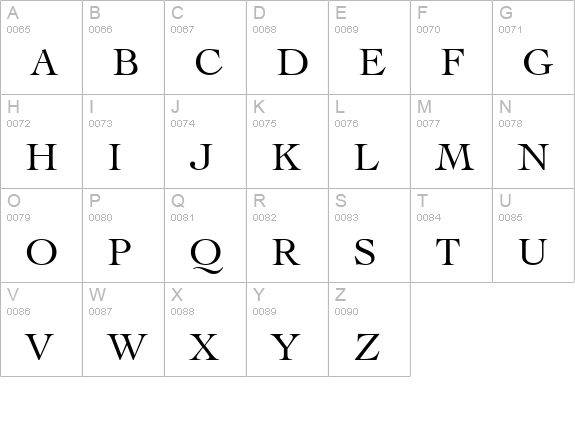
Thesis SSi Font Details
Thesis SSi is a sophisticated and versatile font that is perfect for all your design needs. With its elegant yet modern aesthetic, this font is sure to make a statement in any project. Its clean and crisp lines give it a timeless appeal, making it suitable for a wide range of applications. Whether you're designing a logo, creating a brand identity, or working on a website, Thesis SSi will elevate your design to the next level. One of the best things about Thesis SSi is that it is free. Yes, you read that right – this incredible font is freely available to download at FontsMarket.com. This means that you can enjoy the beauty and versatility of Thesis SSi without breaking the bank. It's a fantastic opportunity to add a high-quality font to your collection without having to spend a dime. Downloading Thesis SSi from FontsMarket.com is quick and easy. Simply visit the website, search for the font, and click on the download button. Within seconds, you'll have access to this remarkable font and can start incorporating it into your designs. FontsMarket.com ensures a seamless and secure download process, so you can rest assured that you're getting a genuine and reliable version of Thesis SSi. Once you have Thesis SSi in your font library, the possibilities are endless. Its legibility and versatility make it suitable for both print and digital projects. From invitations and brochures to websites and social media graphics, this font will add a touch of sophistication and style to any design. Don't miss out on this amazing opportunity to enhance your design work with Thesis SSi. Download this free font today from FontsMarket.com and unlock a world of creative possibilities. Elevate your designs, stand out from the crowd, and showcase your unique style with the timeless beauty of Thesis SSi.